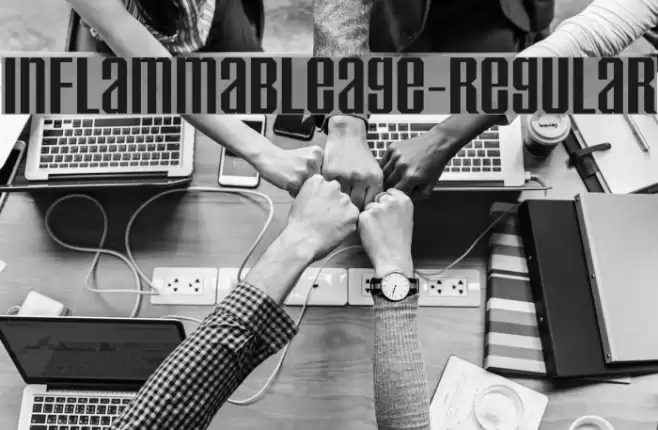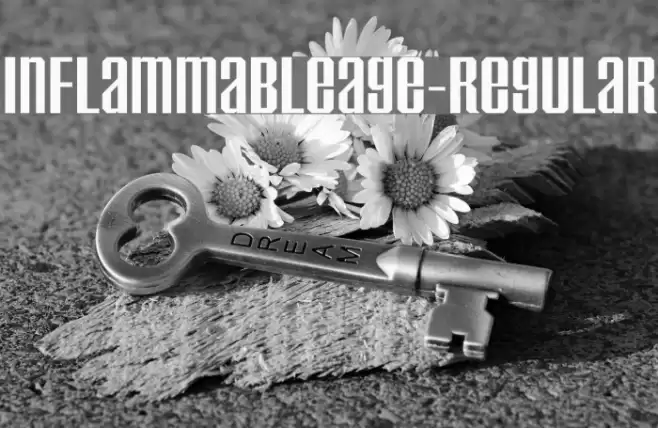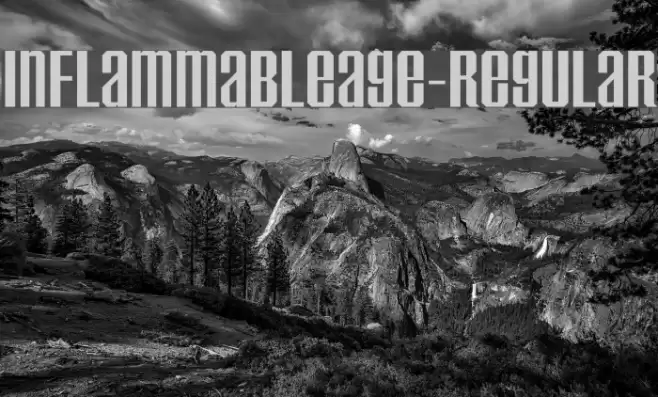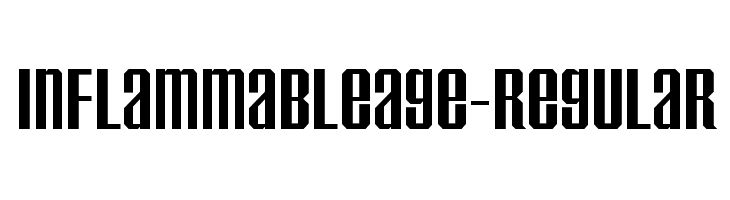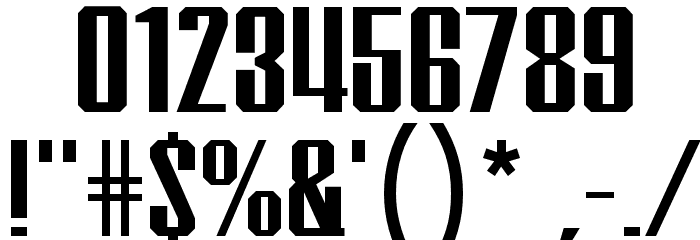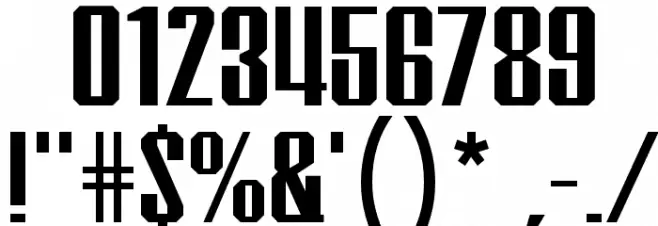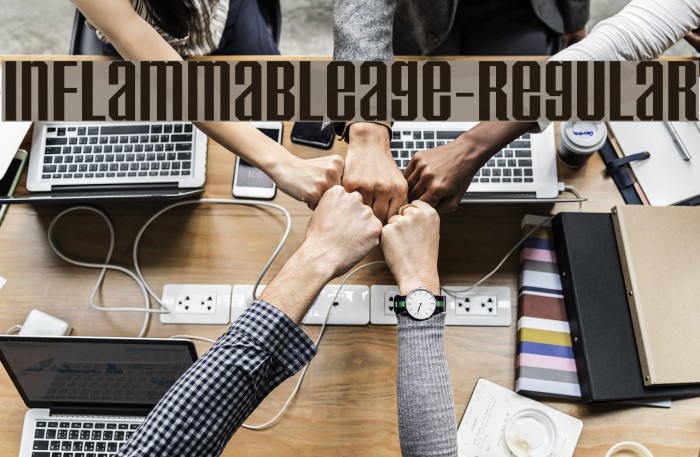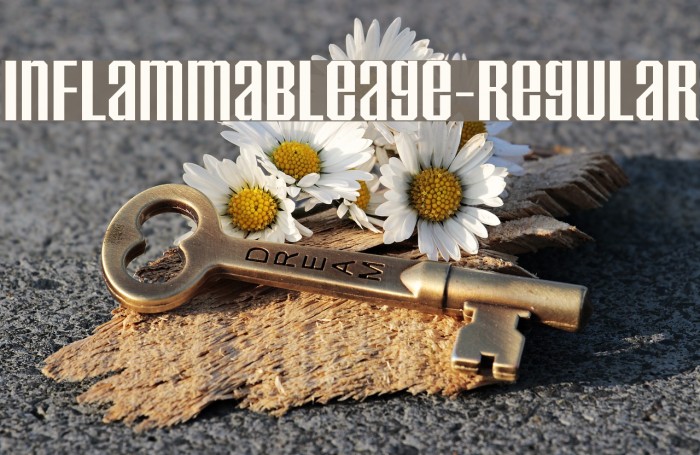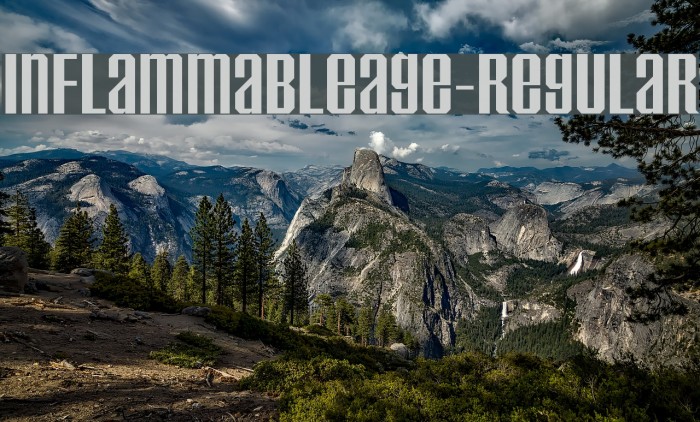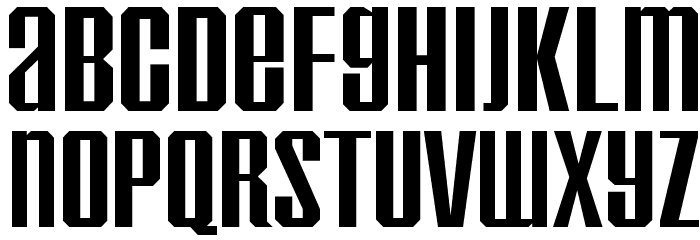
InflammableAge-Regular Font
InflammableAge-Regular Description
This font features a bold and striking design with a strong geometric structure. The characters are tall and narrow, giving it a condensed appearance. The uppercase letters are particularly prominent, with sharp angles and clean lines that convey a sense of modernity and strength. The numbers and special characters maintain the same boldness, ensuring consistency across all elements. This font's design is ideal for making a strong visual impact, suitable for attention-grabbing headlines and titles.
A bold, geometric font with a condensed and modern style from Uncategorized fonts.
- Proposed Projects: Ideal for posters, logos, branding, and any project requiring a bold, impactful typeface.
- Character Spacing: Tight